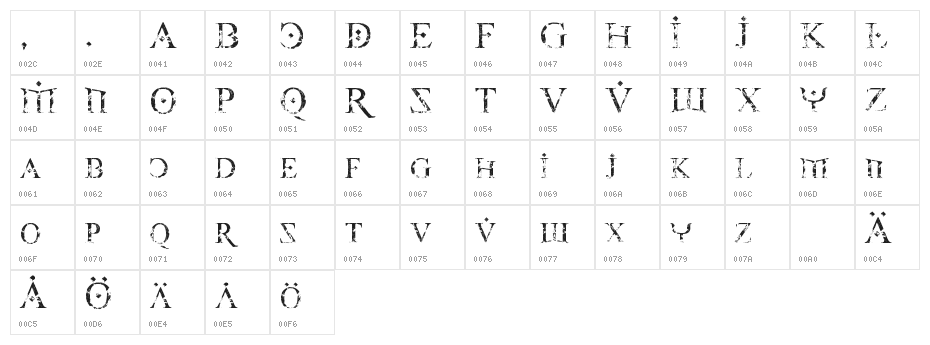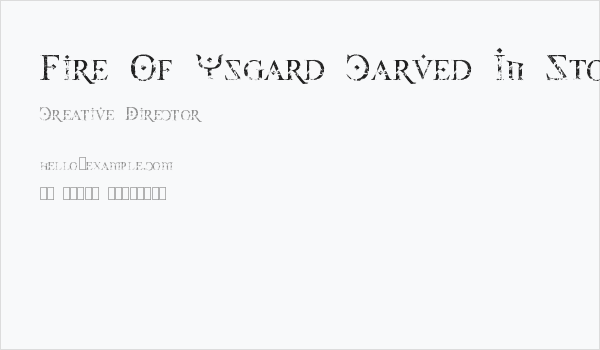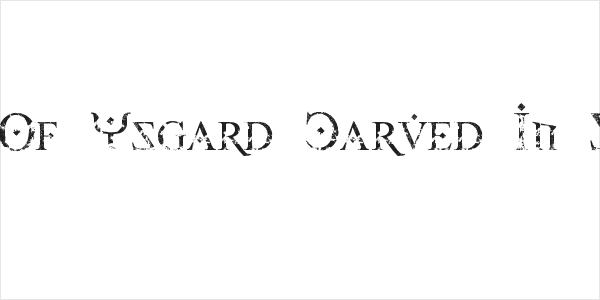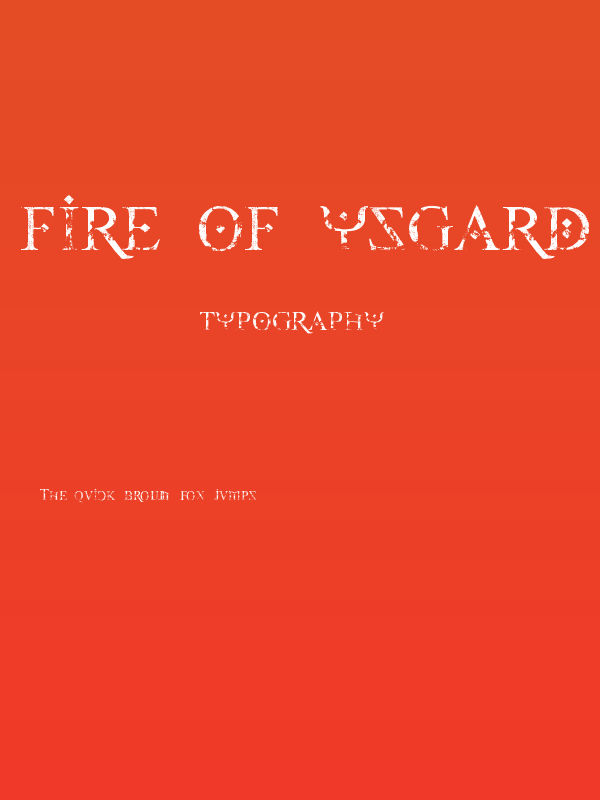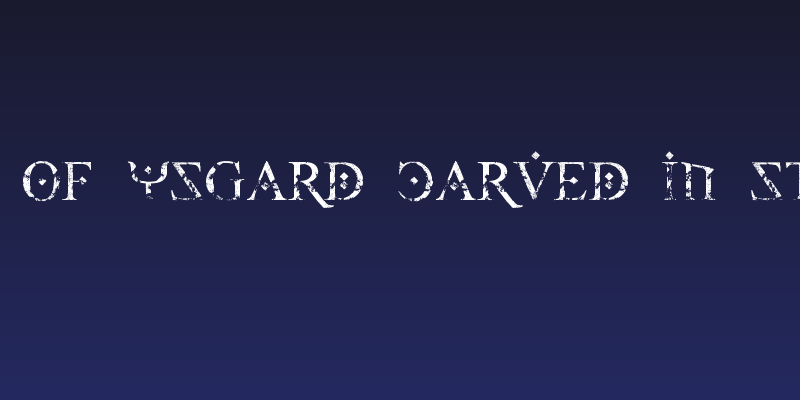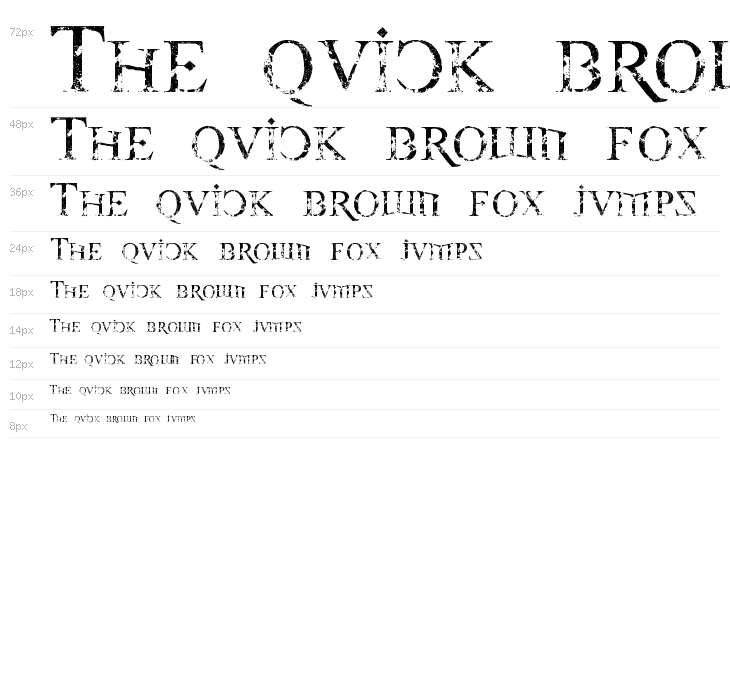
Fire Of Ysgard Carved In Stone Font
Fire Of Ysgard Carved In Stone Description
This font features a rugged, stone-carved appearance, reminiscent of ancient inscriptions. The characters are bold and heavily textured, giving the impression of being etched into a weathered surface. The uppercase letters have a strong, commanding presence, while the lowercase letters maintain the same textured style, ensuring consistency throughout. The font includes unique stylistic elements such as sharp angles and irregular edges, which enhance its ancient, mystical feel. The numbers and special characters are designed to match the overall theme, making it suitable for projects that require a touch of historical or fantasy elements.
| Proposed Projects | Ideal for fantasy-themed designs, historical posters, video game graphics, and book covers that require an ancient or mystical aesthetic. |